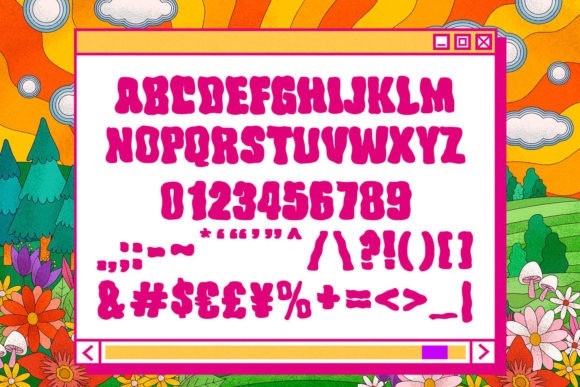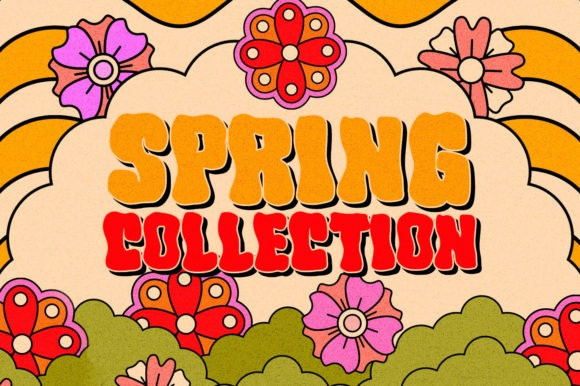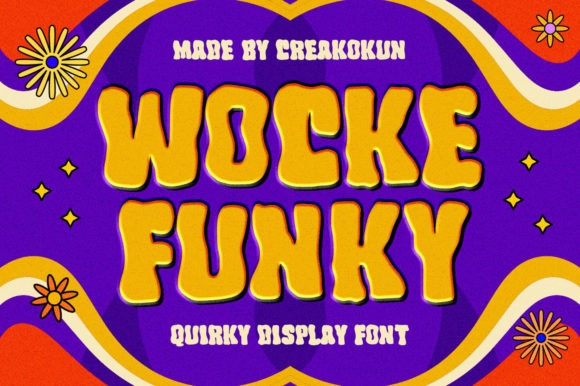
Wocke Funky Font
Wocke Funky Display Font is a bold and flowing display font. It feels playfully nostalgic and delivers an incredible vintage aesthetic. Use this font to add that special funky touch to any design idea you have in your mind!